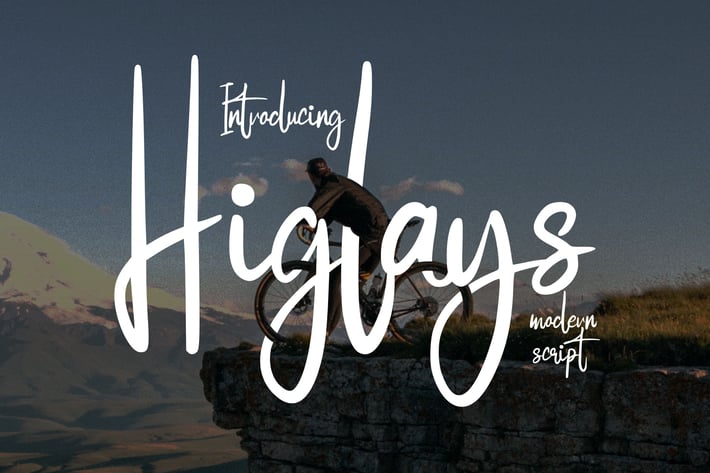
Higlays | Modern Script Font
Higlays | Modern Script Font with a calligraphy style, So beautiful on invitation like greeting cards, branding materials, business cards, quotes, posters, and more!